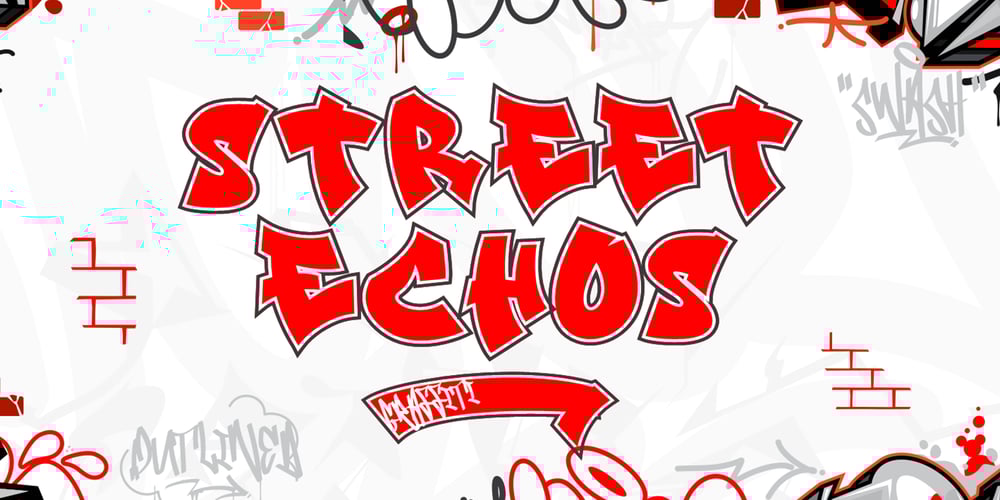
Street Echos Graffiti Outline Font Family was designed by Sipanji and published by Sipanji21. Street Echos Graffiti Outline contains 3 styles and family package options. Street Echos is a graffiti font with three character styles: solid, outlined, and a full version that combines solid with outline. This versatile font is perfect for any street or urban-themed project, bringing a dynamic and edgy look to your designs. Whether you’re working on posters, apparel, branding, or digital art, Street Echos adds an authentic graffiti vibe that stands out. The inclusion of multiple styles allows for creative layering and customization, making it a valuable addition to any designer’s toolkit.